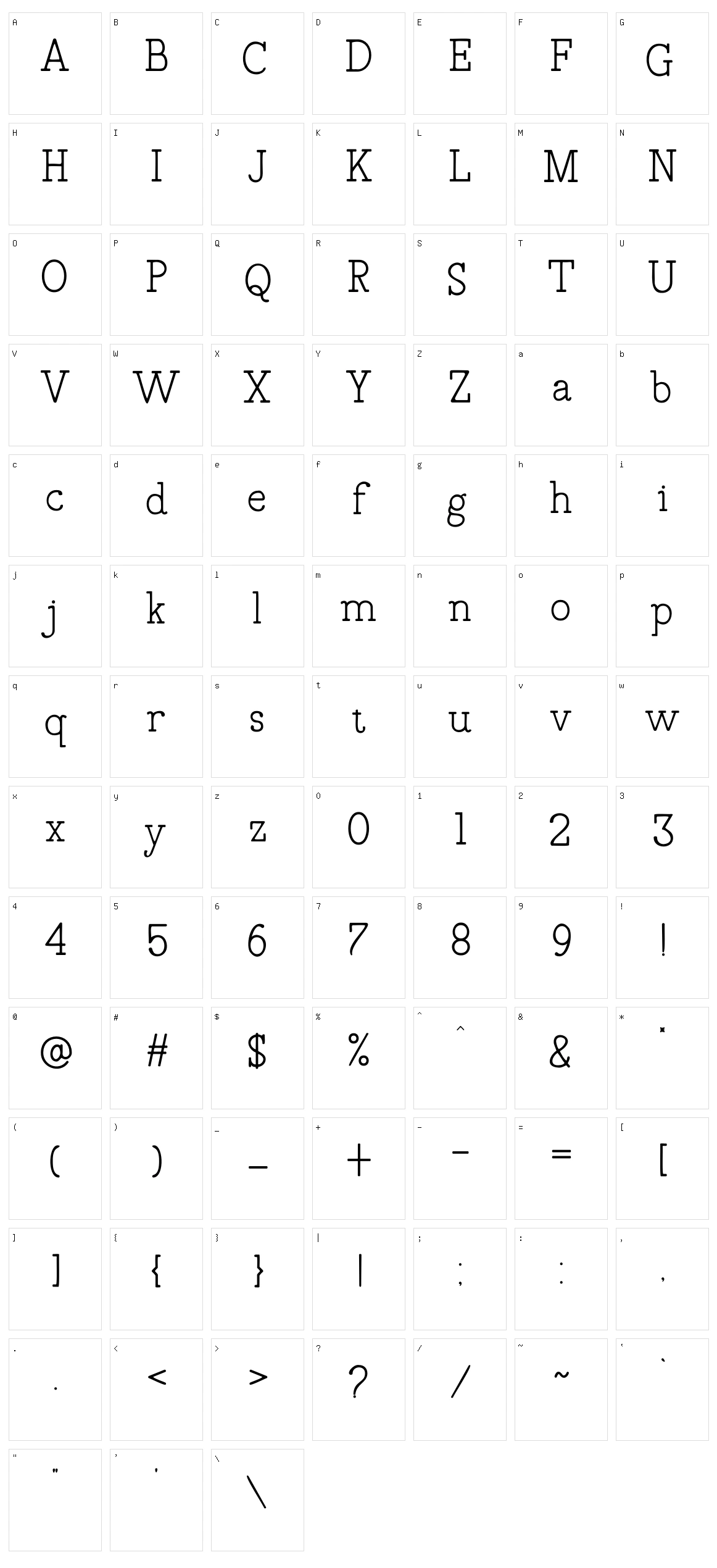
The free font Draftside is carefully designed by Rvandtype, showcasing a thoughtful balance of creativity and usability and falls under the Typewriter font style. When you download the ZIP file, it contains only 278.35 KB of font files, making it lightweight and quick to download. Please review the license details below to understand permitted usage and distribution rights. If license information is not available, we recommend using this font for personal projects only or contacting the author directly for commercial usage permissions.